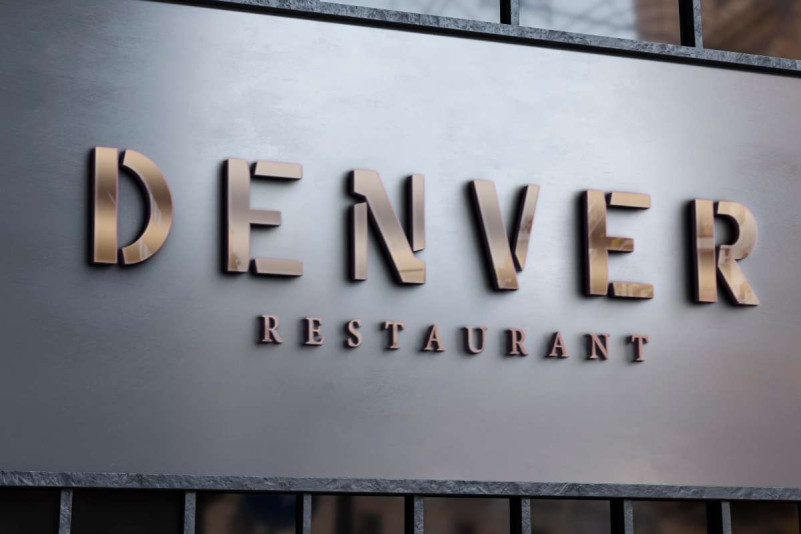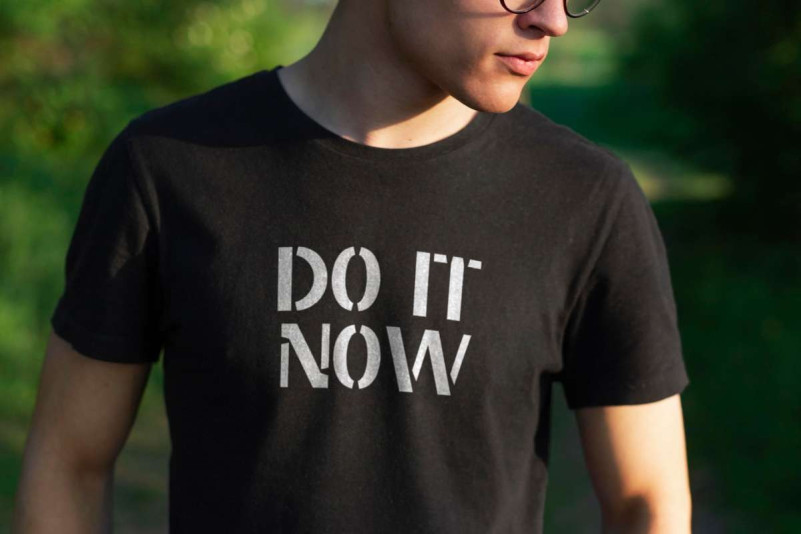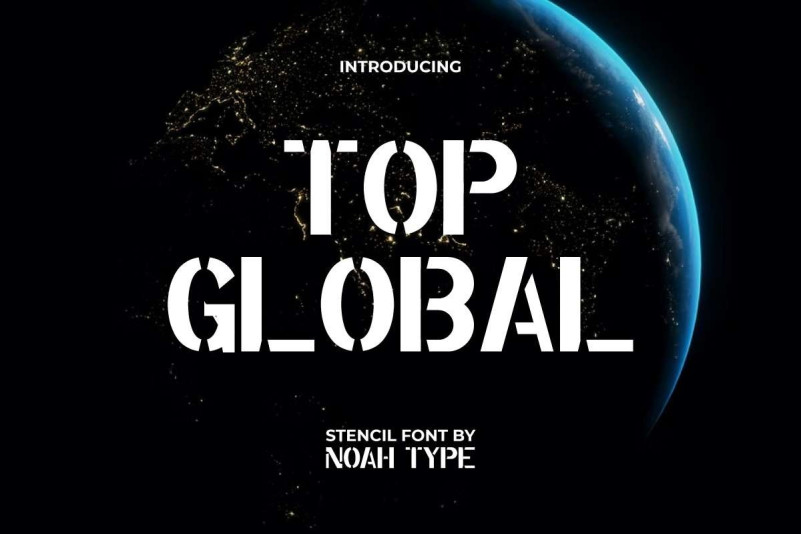
Top Global Font
Top Global Font is a military themed display font with stencil style, created by NoahType. This font has bold lines that are neatly made with cutouts in certain places for a stunning look. It would be perfect for many industries, such as accessories, advertisement, café, fashion, festival event, film, game, photography, printing, publishing, restaurant, and more!
Top Global Font includes the basic character set of ALL CAPS, Numerals and Punctuation. The font has Regular and Italic styles that will make you believe it is the perfect choice for designs, such as billboard, book cover, brooch pin, business card, custom design, frame art, header, label, product packaging, poster, quote, signage, website, etc.